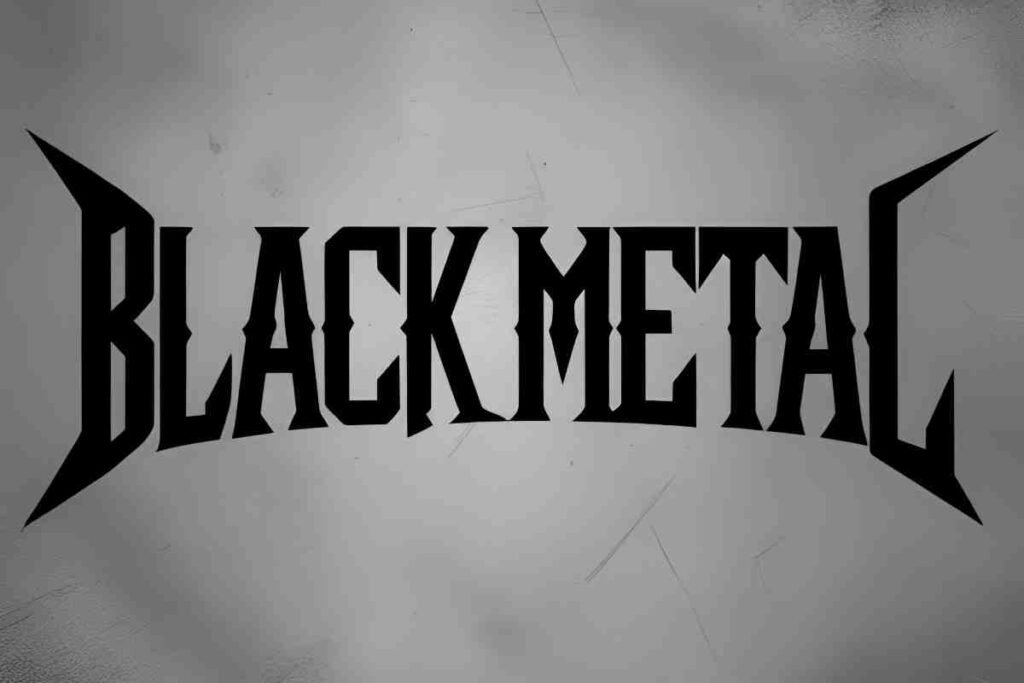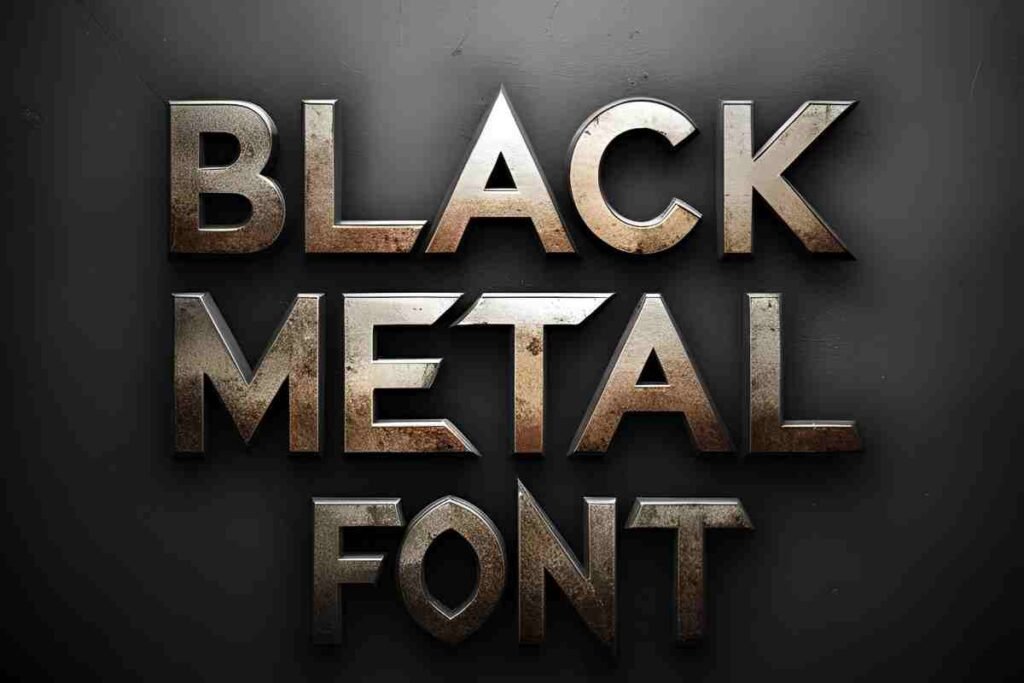
When it comes to creating a design that exudes raw power, mystery, and aggression, a black metal font is your best bet. This edgy style of typography draws inspiration from underground metal culture and is known for its illegible band fonts, raw and distorted fonts, and occult font styles.
Whether you’re designing a metal band logo, working on a black metal font for an album cover, or just exploring Norse-inspired typography, this guide covers everything you need to know.
What Is a Black Metal Font?
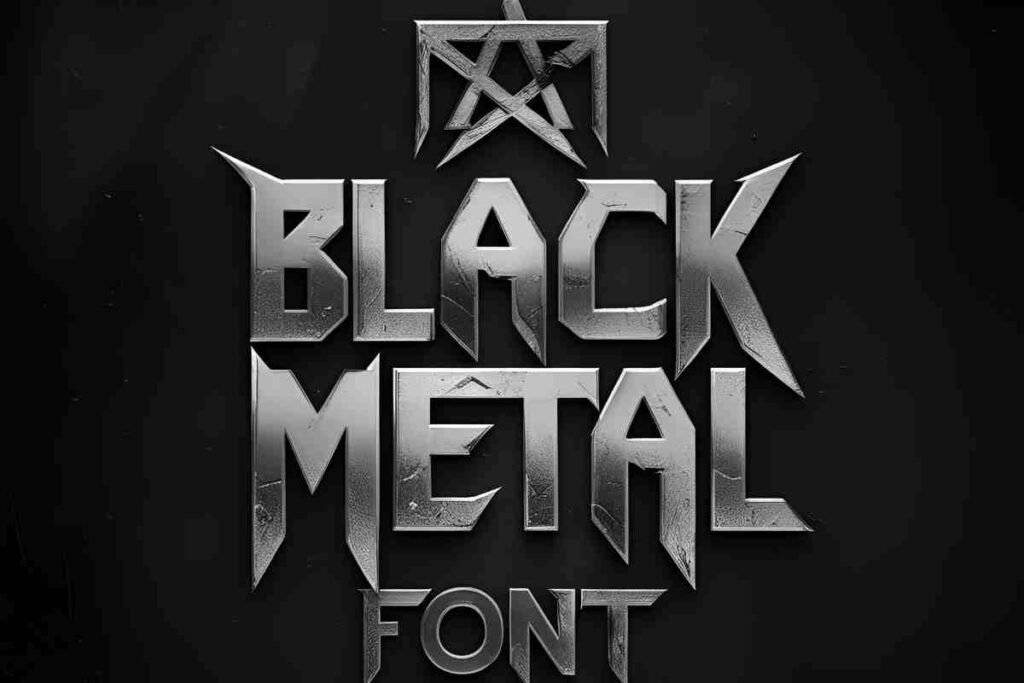
A Black Metal font is a distinct type of typography characterized by sharp, spiky, and chaotic letterforms that evoke a sense of raw aggression and defiance. Inspired by the Scandinavian metal aesthetic, these fonts reflect the dark, rebellious spirit of the genre, often channeling elements of gothic and occult symbolism.
The typography is bold and jagged, designed to mimic the chaotic energy of black metal music, where distortion and intensity are key themes. Frequently seen in album art, band logos, and t-shirt designs, black metal fonts are typically rendered in black and white, with intricate details that add a gothic flair.
These fonts are not just visually striking—they also convey a deep connection to the rebellious and mystical themes of black metal music, which is rooted in darkness, rebellion, and mysticism.
The Black Metal font style is associated with themes like anti-authoritarianism, alienation, and spiritual darkness, often drawing on ancient symbolism, Norse mythology, and occult references. Whether used in album covers, band merchandise, or concert posters, these fonts set the tone for the gritty, intense, and controversial world of black metal music.
In addition to traditional metal album cover art, black metal fonts are also widely used in branding for metal bands, as they convey an air of intensity and underground culture. Their chaotic and intricate structure adds a layer of mystery, making them perfect for any project that seeks to invoke the dark and rebellious spirit of the genre.
Why Designers Choose Black Metal Fonts
The popularity of black metal fonts among designers can be attributed to their ability to make a bold, impactful visual statement. These fonts are more than just a typeface—they represent an entire cultural aesthetic and are intrinsically tied to the rebellious spirit of the metal music scene.
Due to their unique, chaotic, and dark characteristics, black metal fonts are in high demand for creating metal band logos, tattoo designs, music merchandise, horror-themed graphics, and occult branding.
A black metal font offers a distinctive tone that is difficult to replicate with standard typefaces. Unlike traditional fonts that are designed for readability and neutrality, black metal fonts emphasize intensity, aggression, and mystery. These fonts are intentionally illegible at times, with sharp, jagged edges, and distorted forms that mirror the chaotic energy of metal music itself. This lack of clarity contributes to their allure, creating a sense of intrigue and disruption.
Designers gravitate toward black metal fonts for their ability to visually convey the extreme nature of metal music—an art form that embodies themes of rebellion, anti-authoritarianism, and dark mysticism.
The fonts tap into the very essence of the genre, evoking feelings of alienation, spiritual darkness, and aggressive energy. Their dramatic forms set them apart from mainstream fonts, making them the go-to choice for those looking to capture a sense of rebellion, raw emotion, and dark allure.
Because of their unique aesthetic, black metal fonts are often chosen by brands and musicians looking to transcend traditional visual design and create a distinct identity that stands out in the crowded world of graphic design.
Top Black Metal Font Styles to Download
There is no shortage of black metal fonts that can elevate your design. For example, Necrograph is an ideal font for tattoos, with its sharp edges and intricate details. If you’re working on an album cover, Hellvetica offers a bold, twisted version of the classic Helvetica, creating a blend of readability and chaos.
DarkRitual gives a perfect vibe for album artwork with its eerie presence, while Gravestone Gothic merges the characteristics of vintage horror fonts with a blackletter font style for a gothic and ominous feel. Fonts like Thorns of Chaos and Corpse Script are ideal for lovers of the death metal font style due to their rough, gritty textures that evoke the raw energy of the genre.
Witchhunt, on the other hand, blends occult font styles with modern elements, creating a perfect visual representation of black metal aesthetics. For fonts inspired by Norse mythology, BloodRune is an excellent choice, bringing a Norse-inspired typography to your design. Finally, Frostbite Legacy stands out for its spiky, jagged appearance, making it an excellent choice for designs that call for a true Scandinavian metal aesthetic.